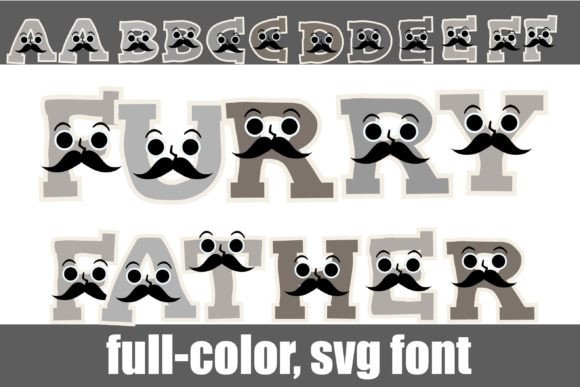
Journey into the realm of exquisite typography with Furry Father Font, a chromatic masterpiece crafted by Illustration Ink. This full-color font beckons you to unveil a world of boundless creativity, where letters dance with vibrant hues and personality.
Dive into an ocean of colors as you explore Furry Father Font's splendid blocky serif letters, adorned with captivating eyes and playful mustaches. Each character is a tiny work of art, bursting with whimsy and charm, ready to ignite your imagination. Unleash your inner artist and let Furry Father Font paint your words with a rainbow of colors.
Take your SVG designs to dizzying new heights with Furry Father Font, your secret weapon for creating graphics that pop off the screen. Its unique OpenType, full-color (SVG) format allows you to infuse your designs with a kaleidoscope of colors, adding depth and dimension that will leave your audience spellbound.
Embrace Furry Father Font's versatility and let it dance across your digital canvas. Its playful spirit and captivating charm will undoubtedly elevate your creative projects, whether you're designing logos, crafting social media posts, or creating eye-catching presentations.
Furry Father Font awaits you, an open invitation to embark on a creative odyssey where colors ignite your imagination and your designs take flight. Seize this opportunity to elevate your creations with a font that embodies joy, whimsy, and boundless possibilities. Embrace Furry Father Font and watch your designs blossom into a symphony of colors that will captivate and inspire.